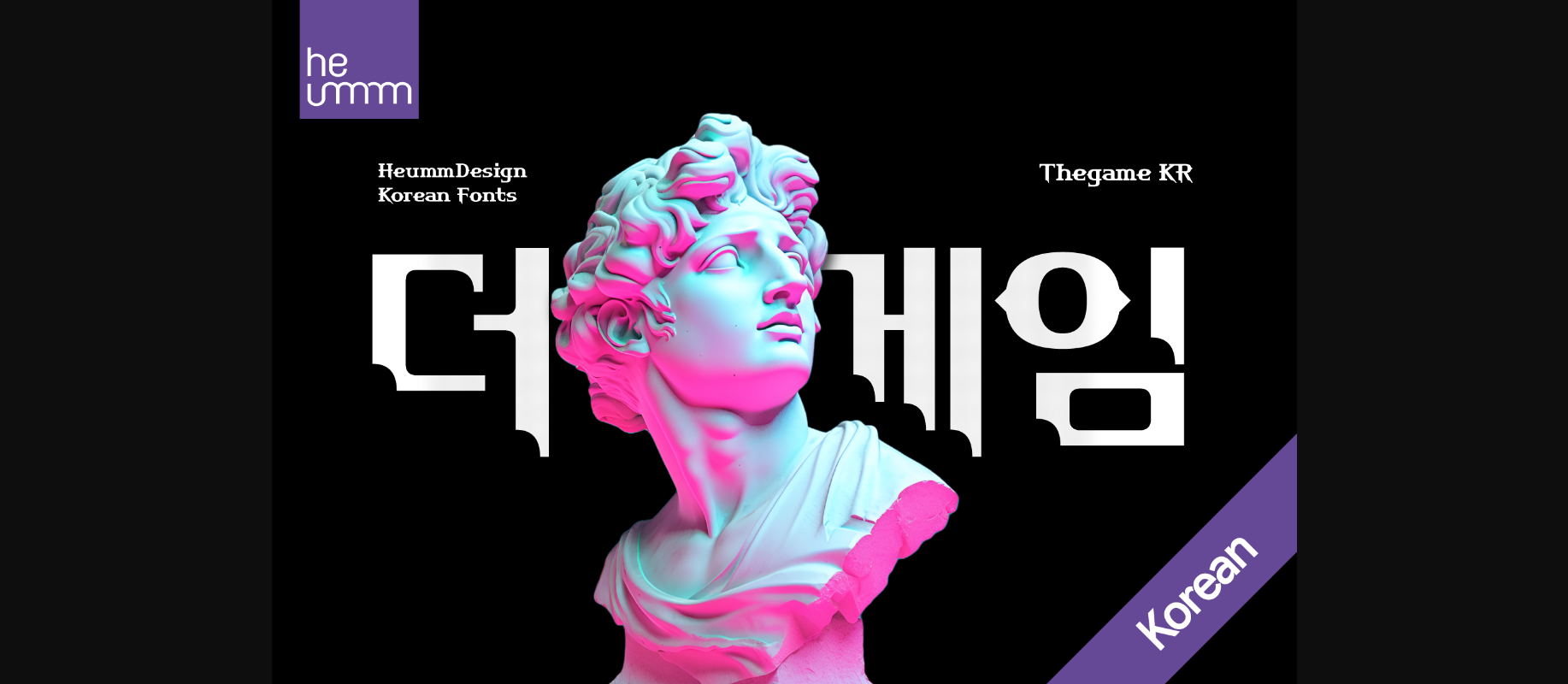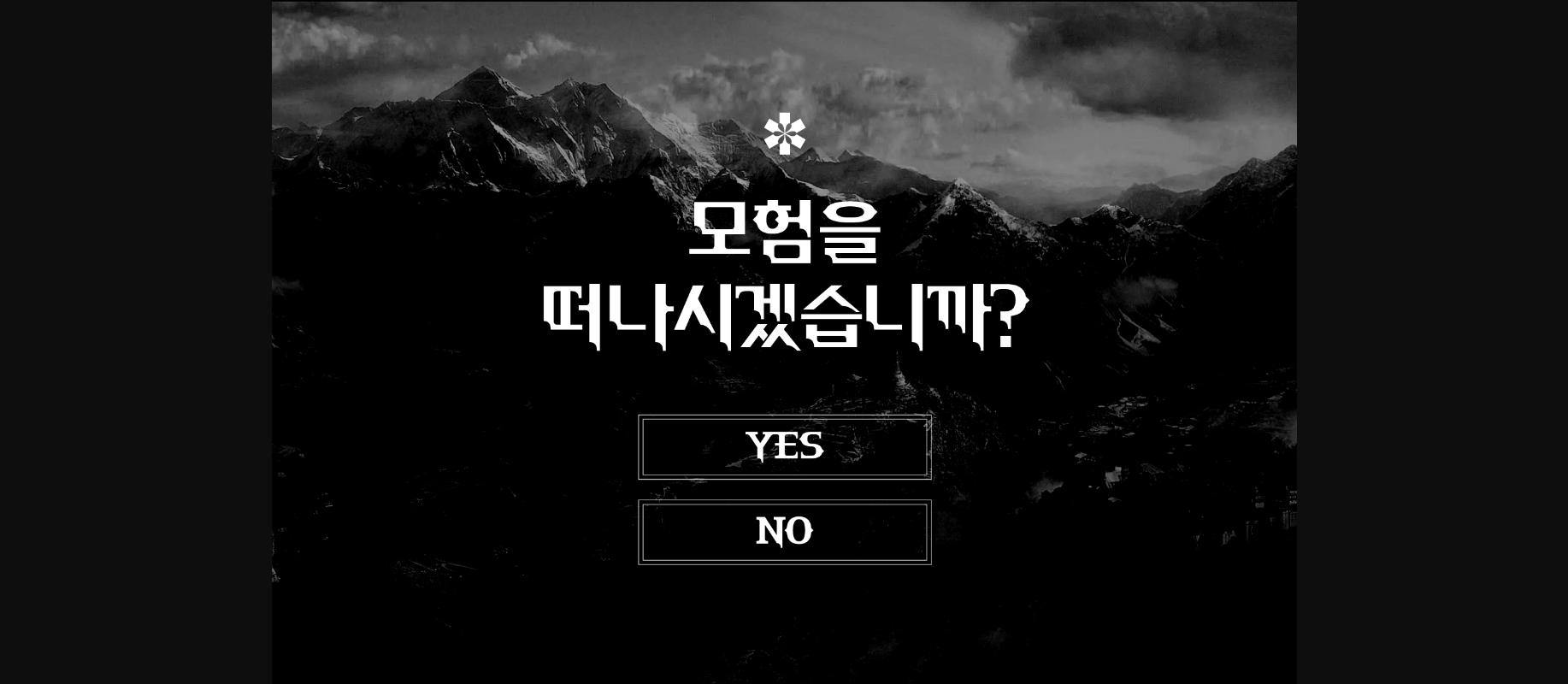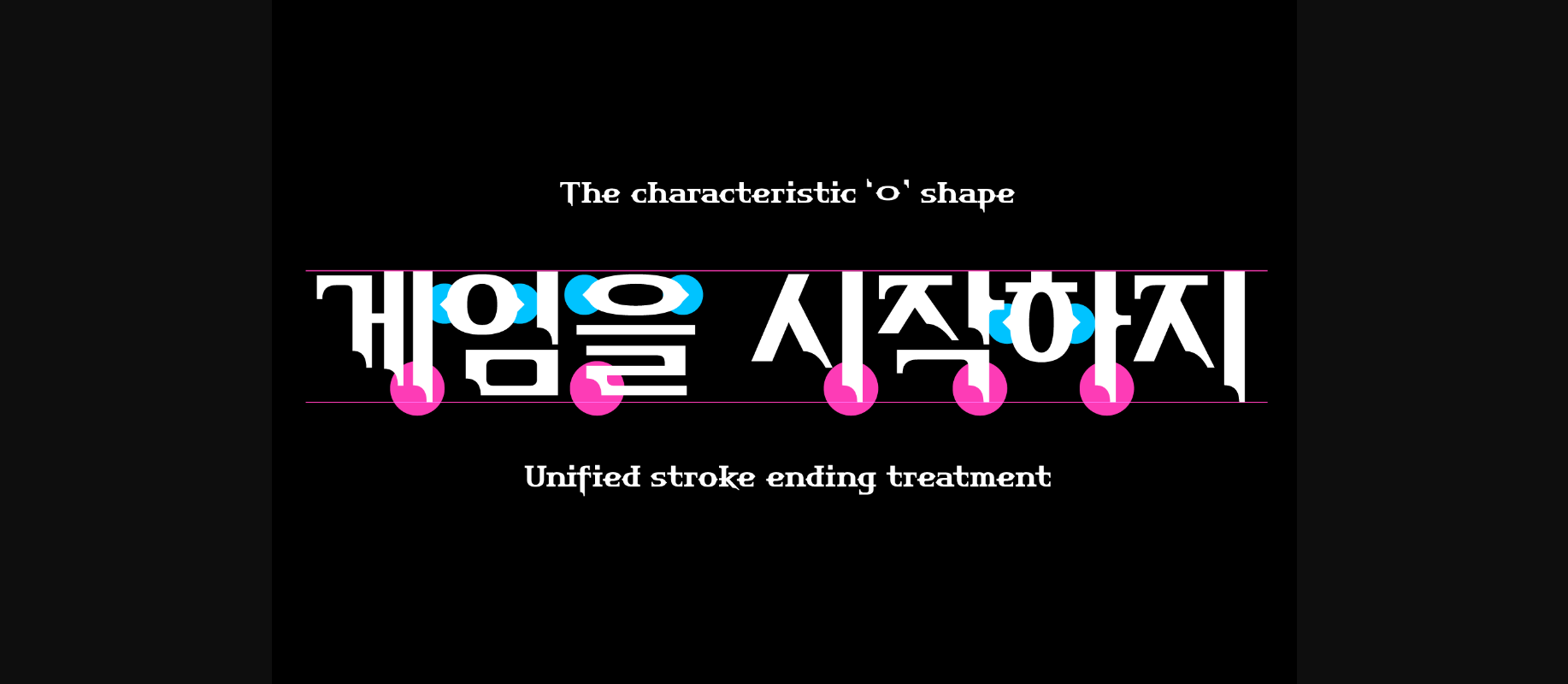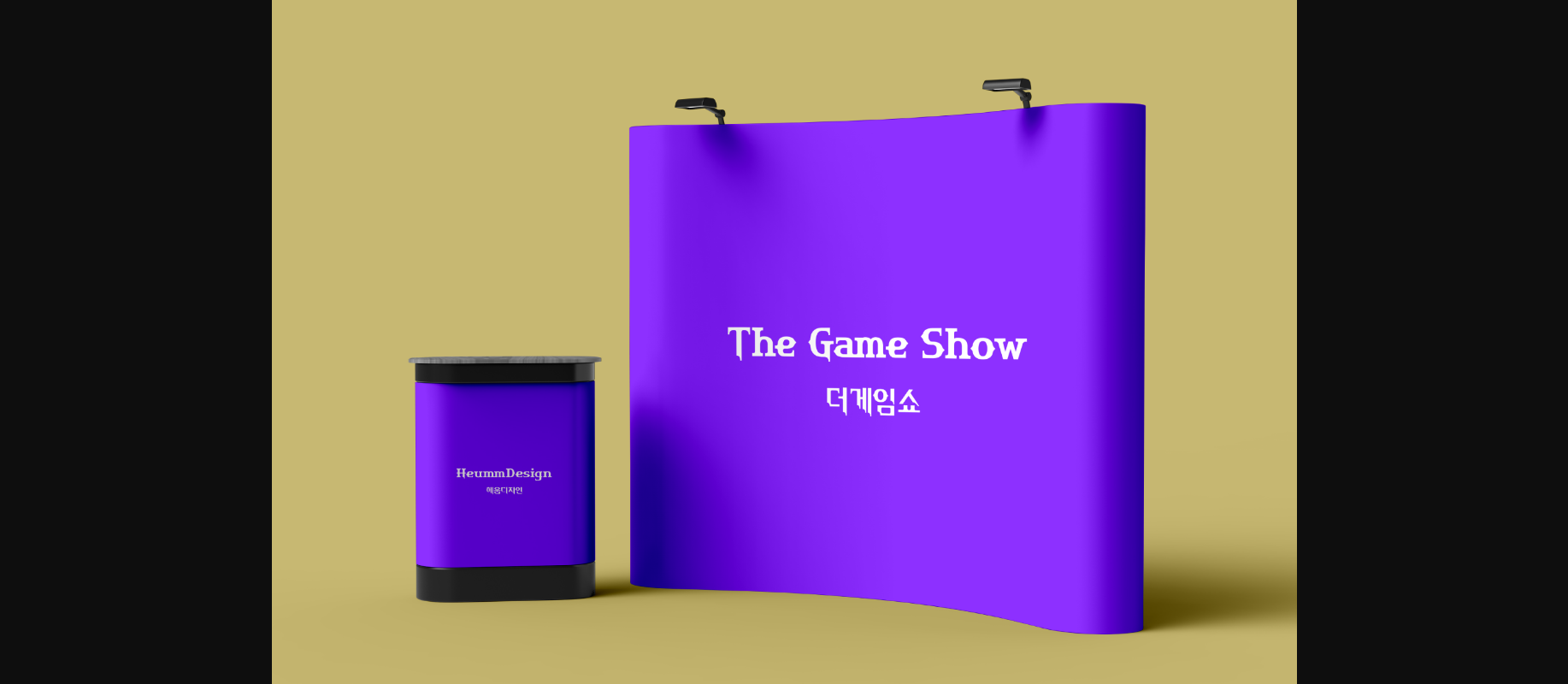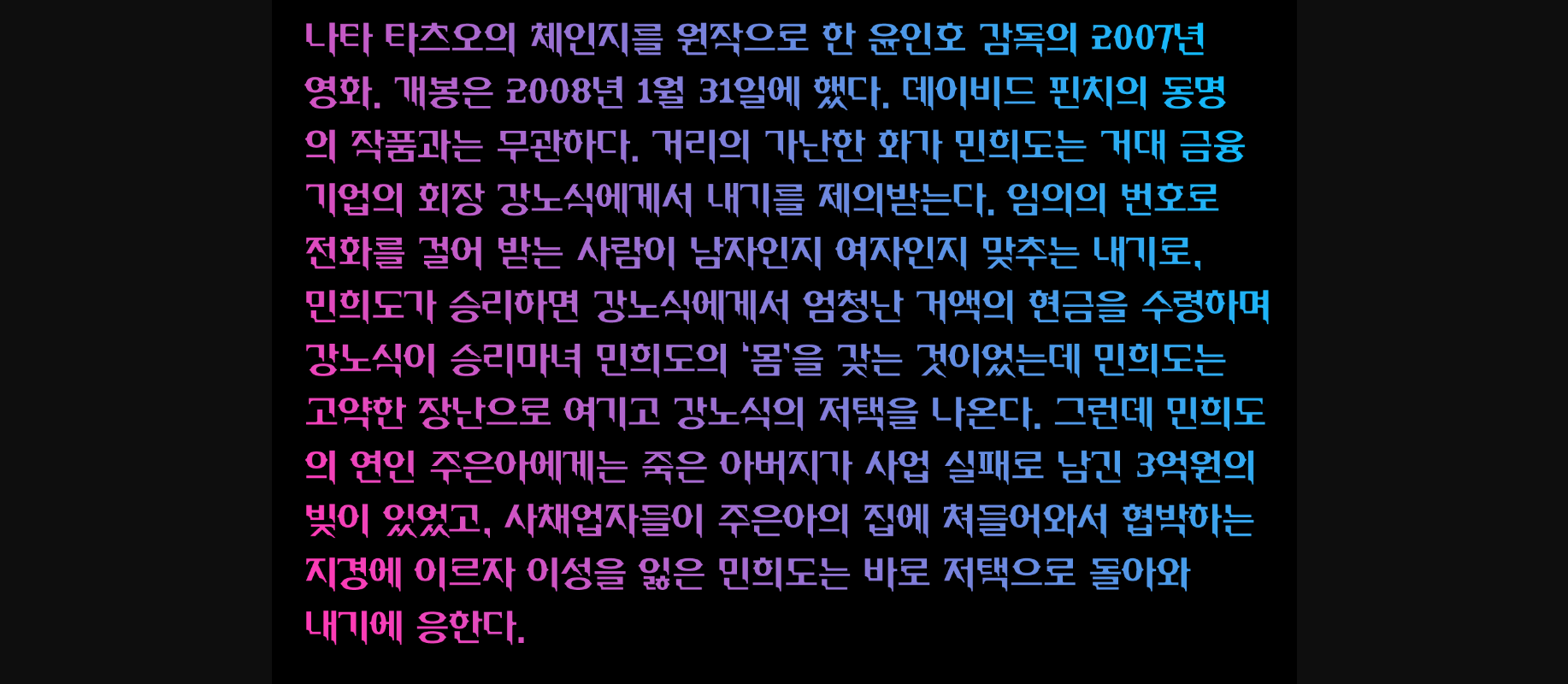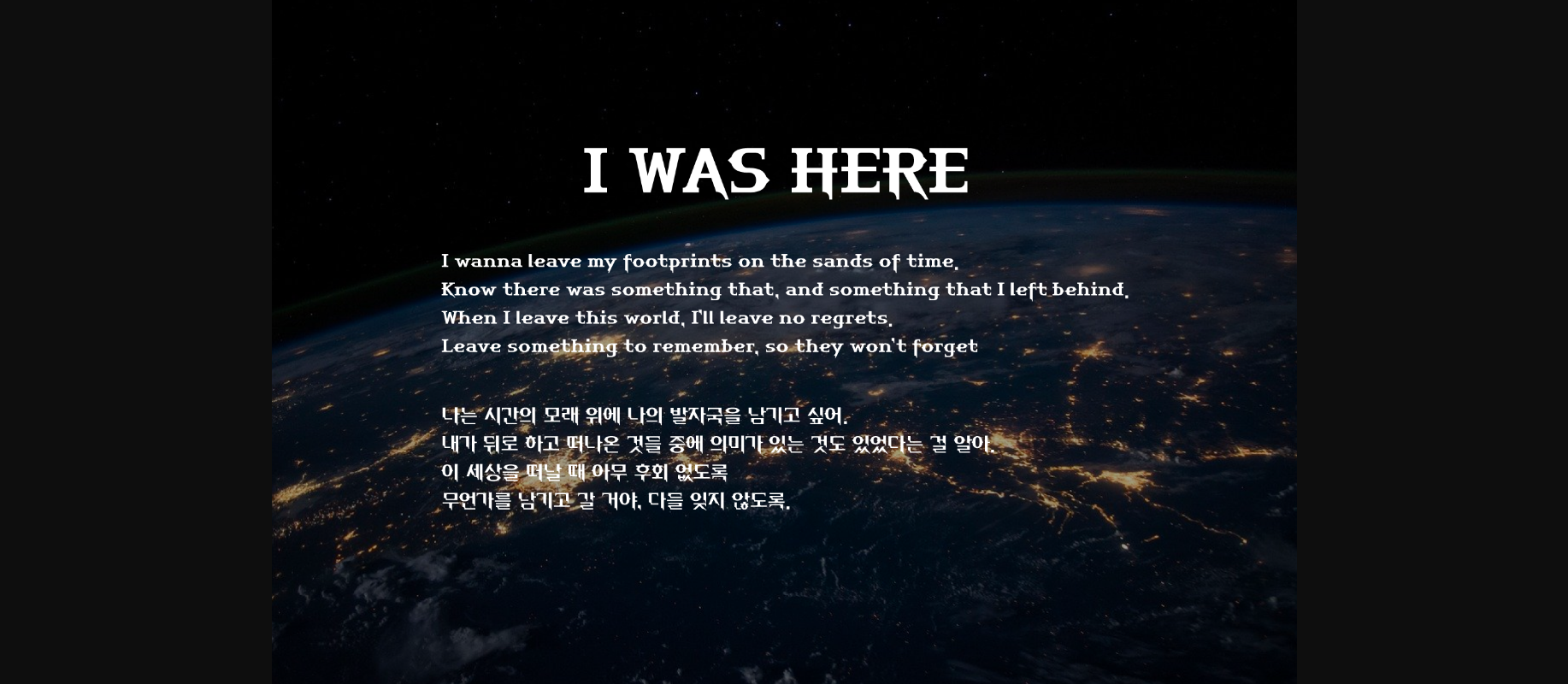
Thegame Kr (korean) Font
Thegame KR was created with a game as a motif and is a characteristic font with sharp and strong elements. The finishing of the same strokes gives the font a sense of unity and makes it look sharper and colder. This font is suitable for use as a headline. It contains Hangul, Korean.